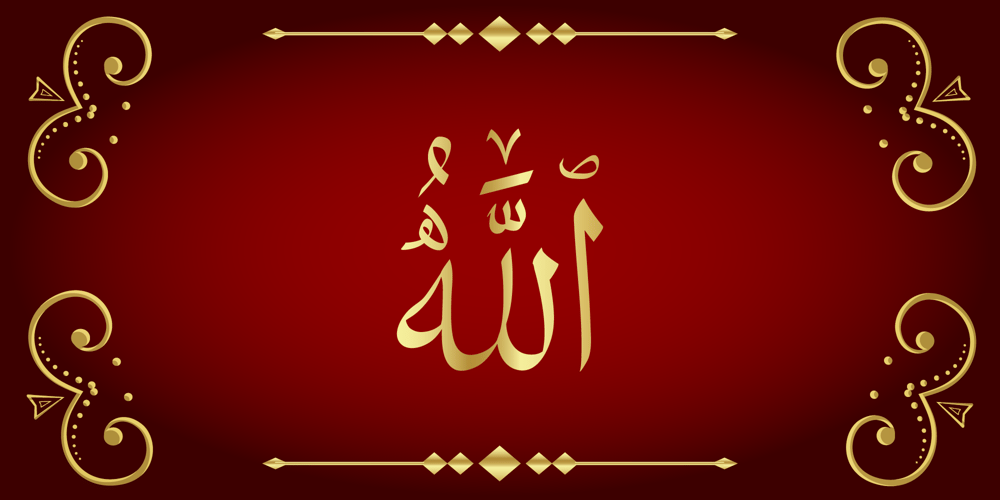
99 Names of ALLAH Clear
99 Names of ALLAH Clear font
99 Names of ALLAH Clear Font Family was designed by Ibrahim Abdo and published by Islamic Calligraphy75. 99 Names of ALLAH Clear contains 1 styles and family package options. We have transformed the “99 names of ALLAH” into a font. That means each key on your keyboard represents 1 of the 99 names of ALLAH Aaza Wajal. The fonts work with both the English and Arabic Keyboards. We call this Calligraphy “Clear” because of how clear and easy to read the design is. The first “Alef” has a “hamzit wasel”, this indicates that you can pronounce it as both “AR-RAHMAAN” or “R-RAHMAAN” (in the zip file you will find a pdf file explaining the differences in the “harakat”, pronunciation and spelling according to the Holy Quran). The “Ye” in this calligraphy doesn’t have the two dots, nor does it have a decorative “Ye”, just like the Holy Quran. Also, we went for the traditional “soukoun” instead of the Quranic “soukoun” & decorative symbols are at a minimum. Decorative letters used in this calligraphy: “Mim, Aain, Sin, HHe, He, Kaf, Tah & Saad”. Purpose & use: – Writers: Highlight the names in your texts in beautiful Islamic calligraphy. – Editors: Use with kinetic typography templates (AE) & editing software. – Designers: The very small details in the names does not affect the quality. Rest assured it is flawless. The MOST IMPORTANT THING about this list is that all the names are 100% ERROR FREE, and you can USED THEM WITH YOUR EYES CLOSED. All the “Tachkilat” are 100% ERROR FREE, all the “Spelling” is 100% ERROR, and they all have been written in accordance with the Holy Quran. No names are missing and no names are duplicated. The list is complete “99 names +1”. The +1 is the name “ALLAH” ‘Aza wajal. Another important thing is how we use the decorative letters. In every font you will see small decorative letters, these letters are used only in accordance with their respective letters to indicate pronunciation & we don’t include them randomly. That means “mim” on top or below the letter “mim”, “sin” on top or below the letter “sin”, and so on and so forth. Included: Pdf file telling you which key is associated with which name. In that same file we have included the transliteration and explication of all 99 names. Pdf file explaining the differences in the harakat and pronunciation according to the Holy Quran. ————————————————————————————————————————— Here is a link to all the extra files you will need: https://drive.google.com/drive/folders/1Xj2Q8hhmfKD7stY6RILhKPiPfePpI9U4?usp=sharing —————————————————————————————————————————